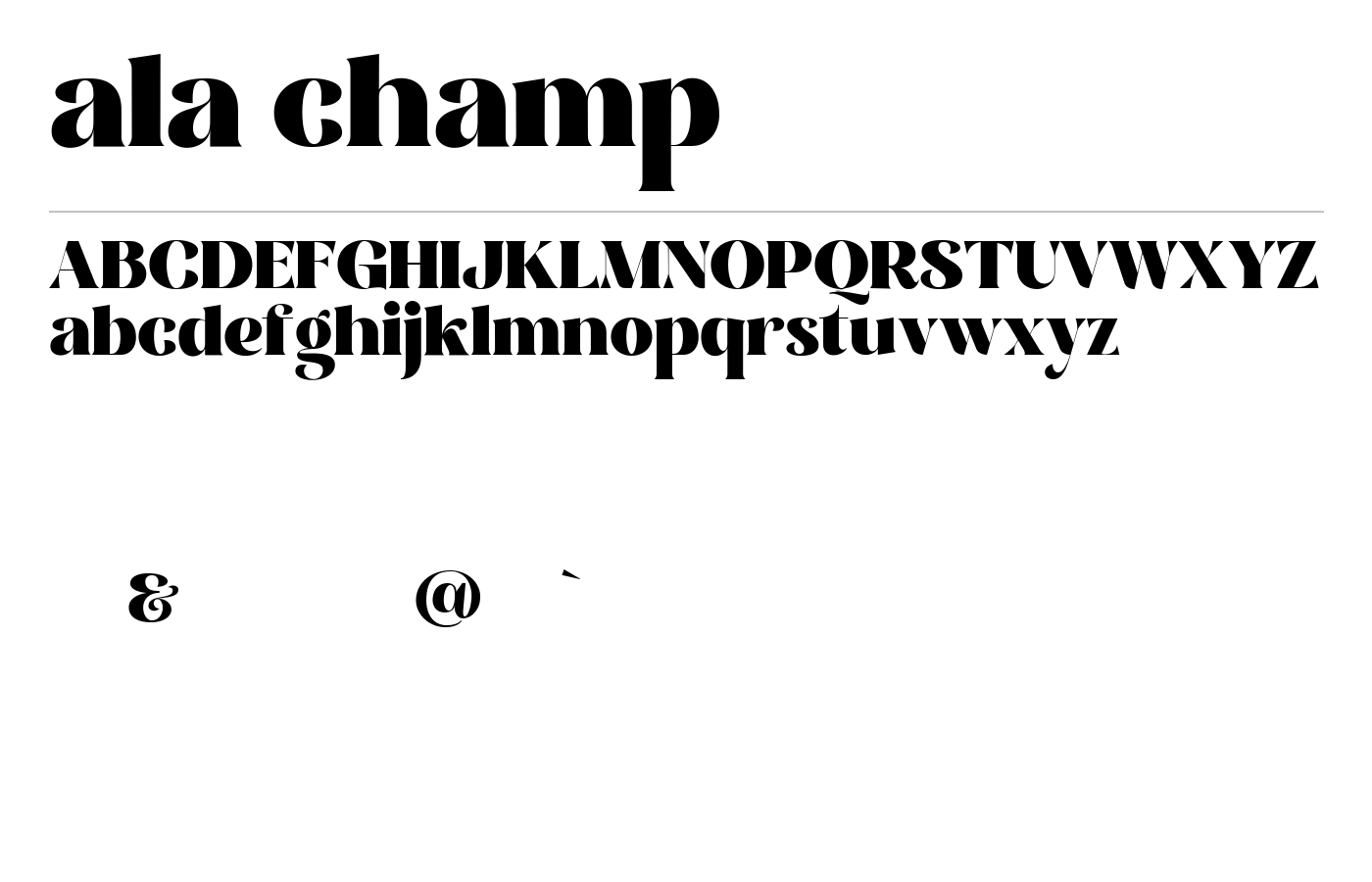
Ala Champ is a bold, modern serif font with high contrast between thick and thin strokes, featuring sharp, bracketed serifs and distinctive double-story letterforms. Its strong presence and elegant style make it ideal for headlines, logos, and luxury branding where a confident and sophisticated look is desired. This font excels in making a bold statement while maintaining a refined, classic charm.
ala champ Font
About ala champ Font
| Designer | Pentagonistudio |